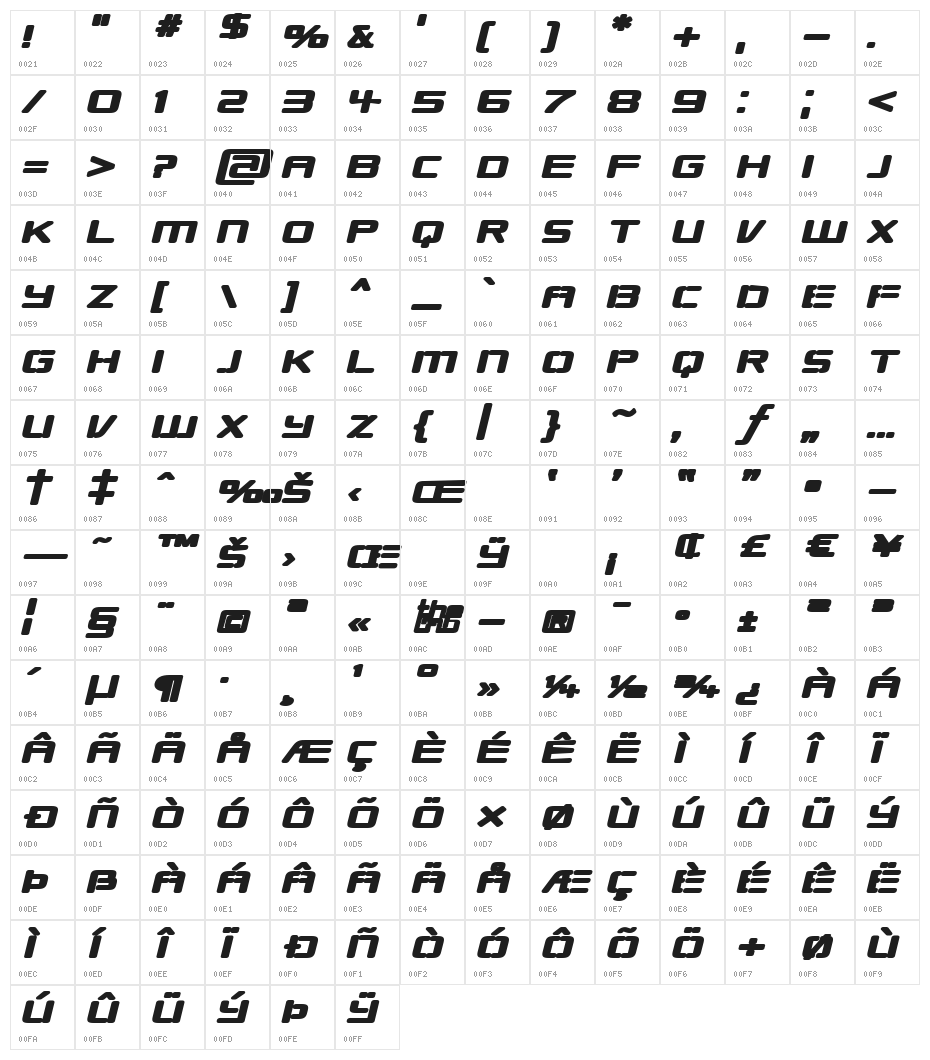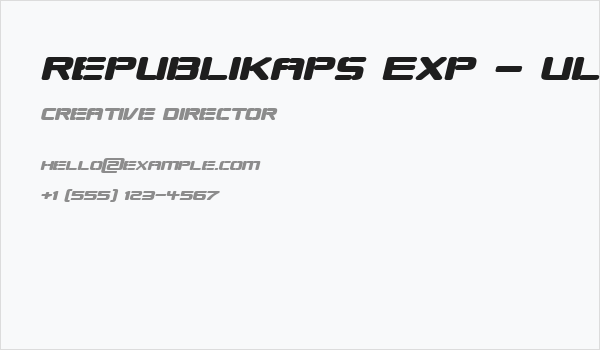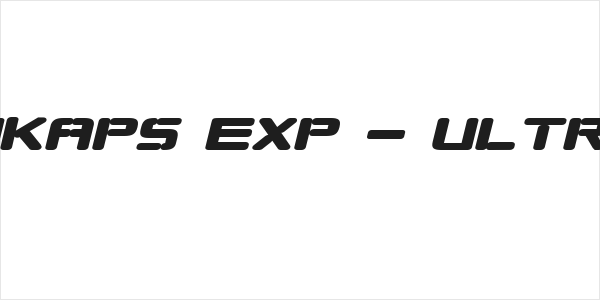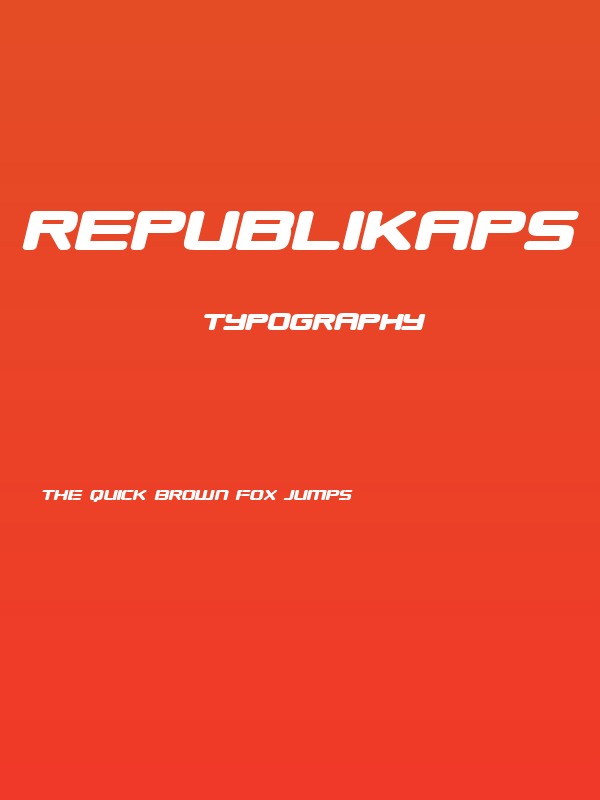
Republikaps Exp - Ultra Italic Font
Republikaps Exp - Ultra Italic Description
This font exhibits a bold and dynamic style with a distinctly modern flair. The characters are italicized, giving a sense of motion and energy. The strokes are thick and consistent, contributing to a strong visual impact. The design features rounded edges, which soften the overall appearance while maintaining a futuristic and sleek aesthetic. The spacing between characters is tight, enhancing the compact and cohesive look. This font is well-suited for projects that require a bold statement, such as sports branding, technology-related designs, or dynamic advertising campaigns.
| Proposed Projects | Ideal for sports branding, tech designs, dynamic advertising, and futuristic themes. |